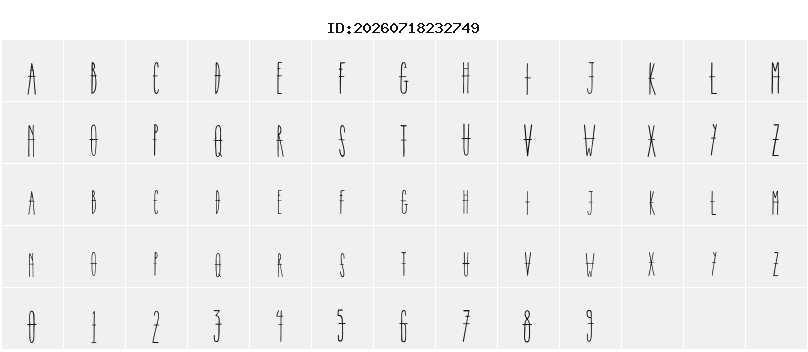
Corder Preview
• Font Name: Corder
• Full Font Name: Corder Regular
• PostScript Name: Corder
About Corder.ttf
Corder.ttf is a modern, elegant sans-serif font designed for ultimate readability and visual harmony. Perfect for branding, headlines, web design, and print materials.